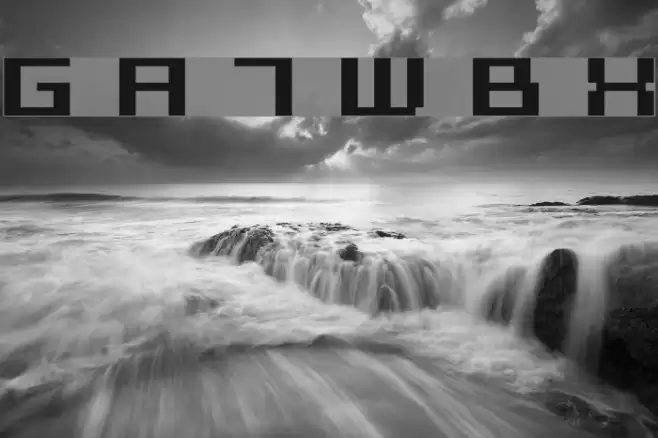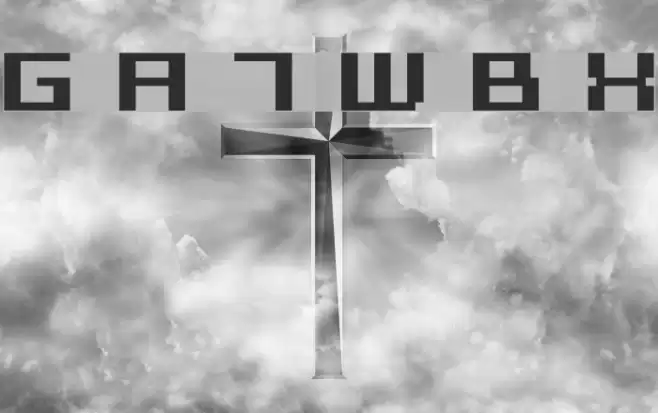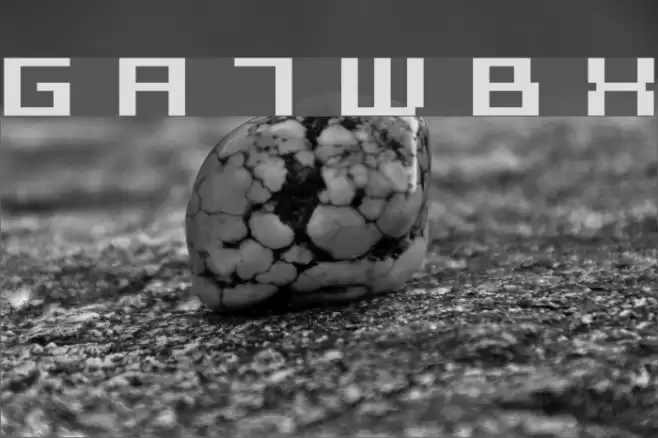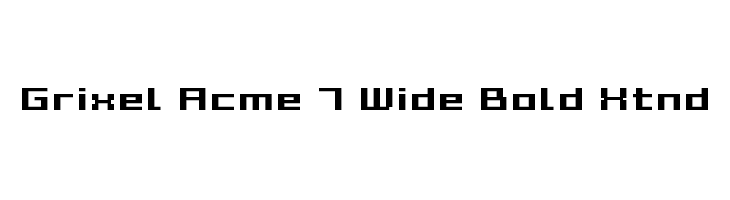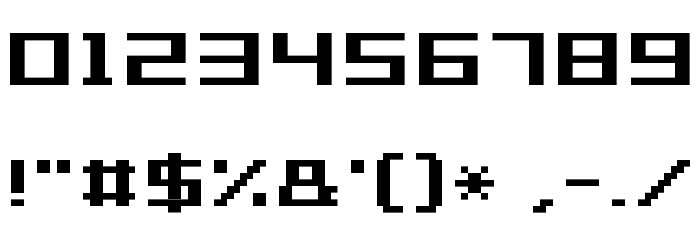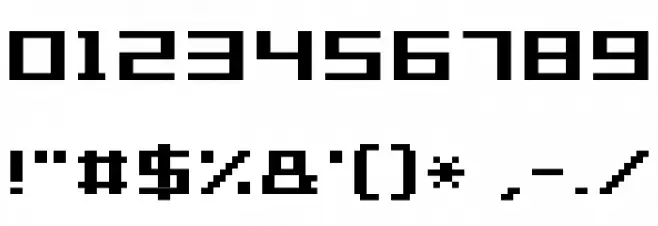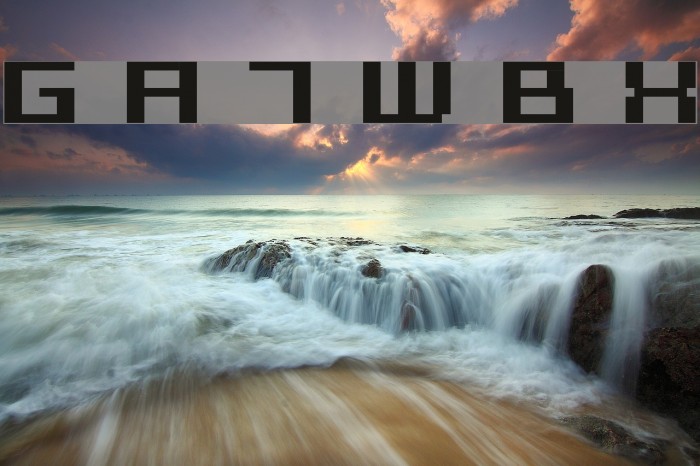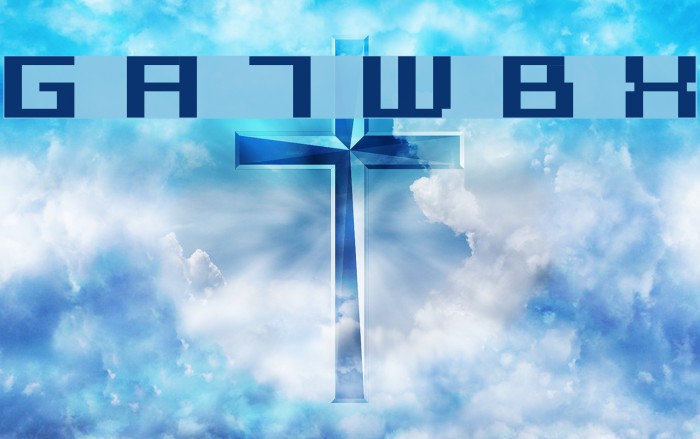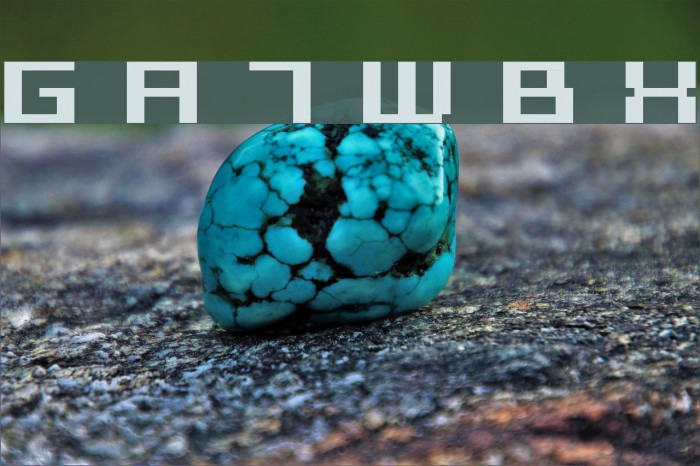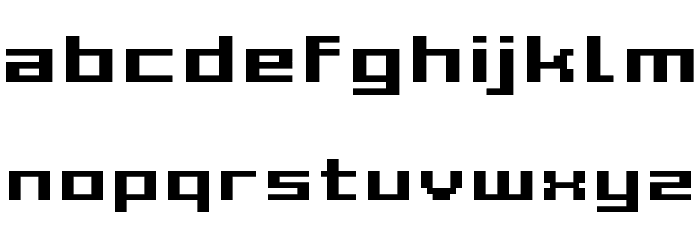
Grixel Acme 7 Wide Bold Xtnd Font
Grixel Acme 7 Wide Bold Xtnd Description
This font features a bold, pixelated design that is reminiscent of classic video game aesthetics. The characters are blocky and geometric, with uniform stroke widths that give it a consistent and structured appearance. The uppercase and lowercase letters maintain a similar width, contributing to a cohesive look. The numerals and special characters are designed to match the overall style, ensuring visual harmony across all elements. This font's distinct style makes it ideal for projects that aim to evoke a sense of nostalgia or a retro digital feel.
A bold, pixelated font with a retro video game aesthetic from Pixel fonts.
- Proposed Projects: Ideal for retro video game designs, digital art projects, and nostalgic branding.
- Width: Expanded
- Overall Style: Retro
- Use Case: Logos, Headlines, Digital Art